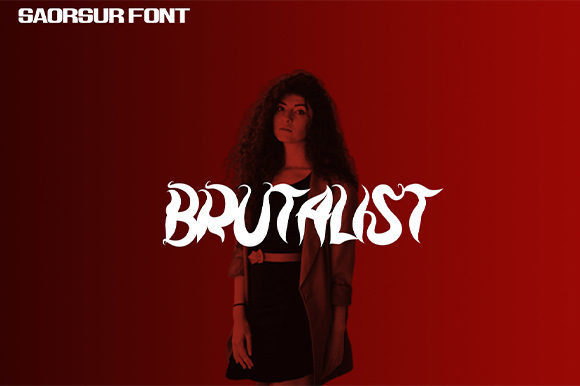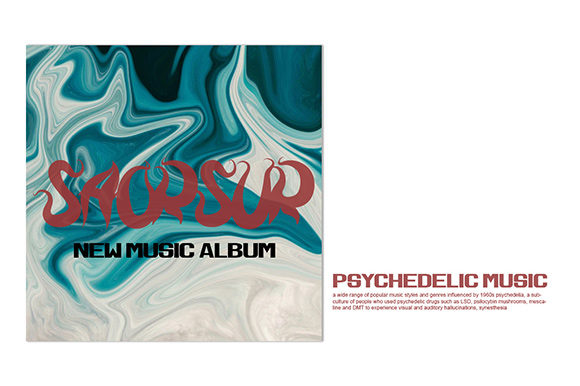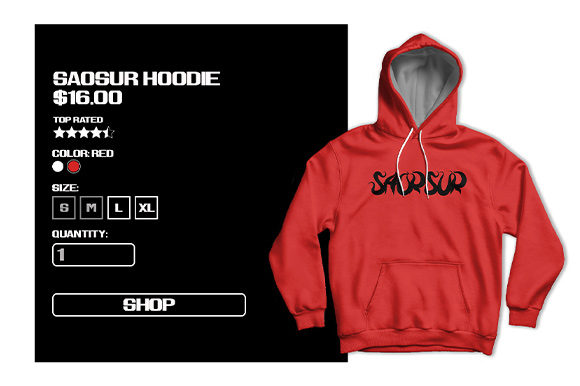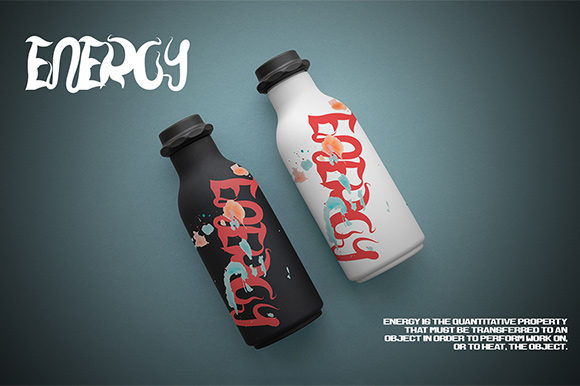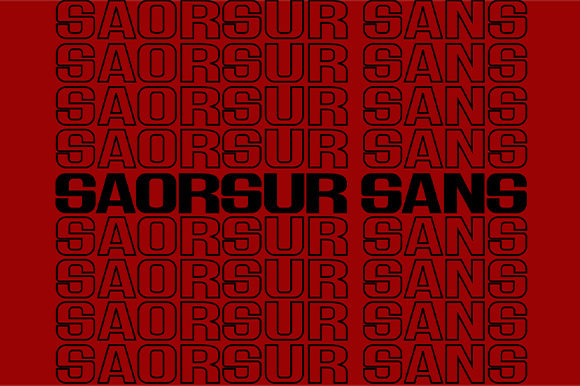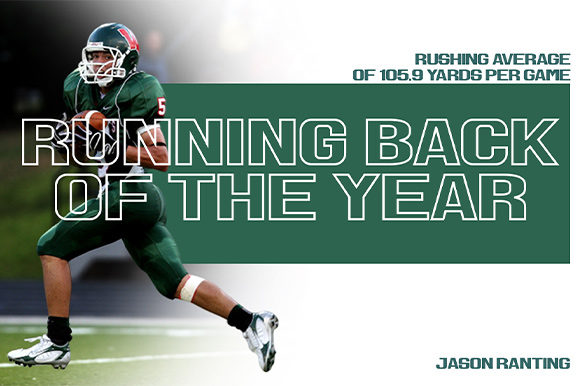
Introduction to Saorsur Font
Have you ever been in the midst of a creative project, surrounded by a sea of ideas and inspiration, yet struggling to find the perfect font to bring it all together? That’s exactly where I was when I stumbled upon the mesmerizing Saorsur Font. This enchanting display font is a game-changer for designers looking to add an extra layer of magic to their designs.
With its psychedelic style and versatility, the Saorsur Font is a design resource that’s hard to resist. Whether you’re working on a music album, creating a poster for a concert, or simply looking for a high-quality font to elevate your social media posts, this font is sure to impress.
Key Features of Saorsur Font
- High-quality design resource with a unique, creative style, perfect for various projects.
- Supports a wide range of languages, making it a versatile design resource for international projects.
- Designed to be scalable, allowing for flexibility in font size and style, from small to large-scale designs.
Honest Review: Saorsur Font
I recently came across the Saorsur Font, and I’m excited to share my thoughts on this design resource. The font is a high-quality addition to any creative project, and it’s available for free download, which is a major bonus for designers on a budget.
- What works well: The Saorsur Font has a unique and modern aesthetic that’s perfect for contemporary designs. It’s also incredibly versatile and can be used for a wide range of creative projects, from digital to print.
- What works well: The font’s transparent background allows for easy layering and customization, making it a great choice for designers who want to add a touch of elegance to their designs.
However, there are a few limitations to consider. ⚠️ The font may not be suitable for all types of designs, particularly those that require a more traditional or formal look.
Overall, I’m impressed with the Saorsur Font. It’s a great addition to any designer’s toolkit, and its high quality and versatility make it a valuable resource for creative projects. If you’re looking for a modern and stylish font, I’d definitely recommend checking out the Saorsur Font.
Tips for Getting the Most Out of Saorsur Font
Experiment with different font sizes and styles to achieve the desired effect. Use the Saorsur Font in combination with other design elements, such as images and graphics, to create a visually appealing design. Don’t forget to save your design as a high-resolution file to ensure that it looks great on any device.
Common Use Cases for Saorsur Font
The Saorsur Font is a versatile design resource that can be used in a variety of creative projects, including:
- Presentation slides
- Brochures and catalogs